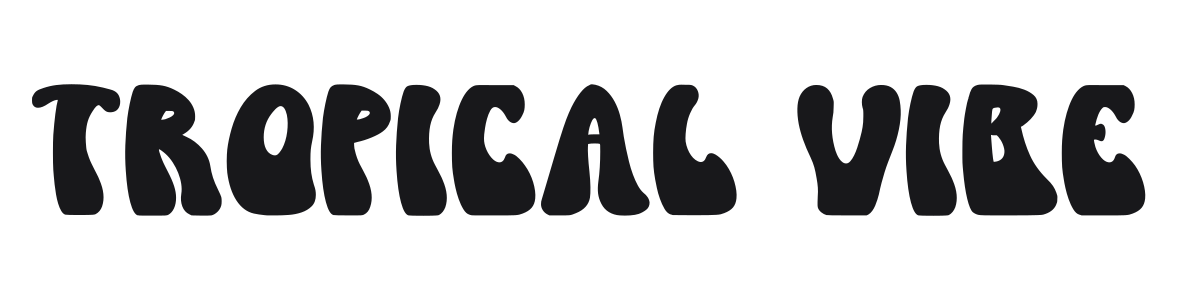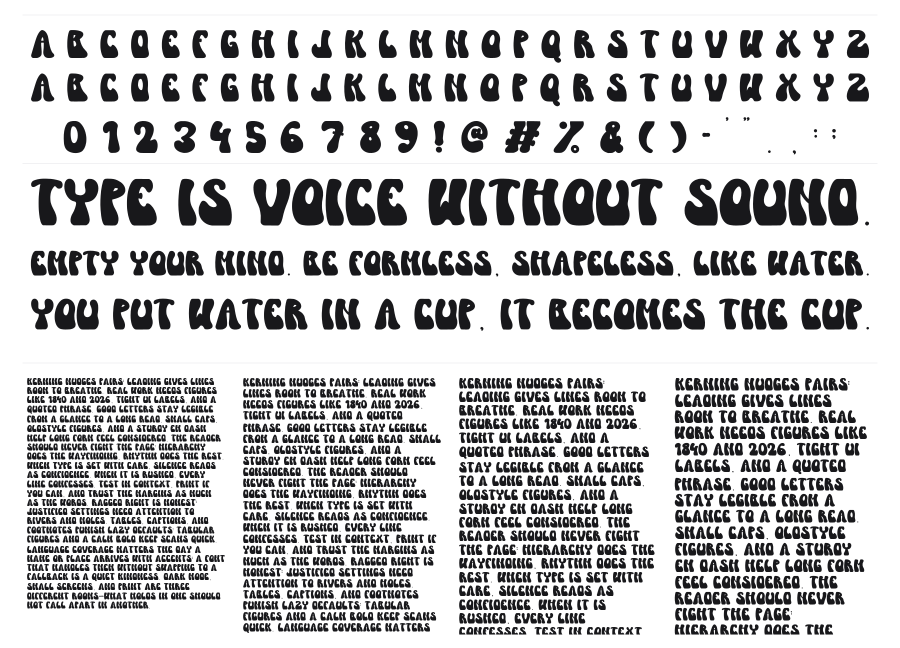
Tropical Vibe
by Asep Rendi
Tropical Vibe is a heavy, ultra-rounded groovy display font dripping with 1960s and 70s psychedelic energy. Every character is pushed to its blobby extreme, with swollen strokes, soft terminals, and zero hard edges. It works well for summer campaigns, festival branding, and anywhere a retro, carefree attitude is the whole point.